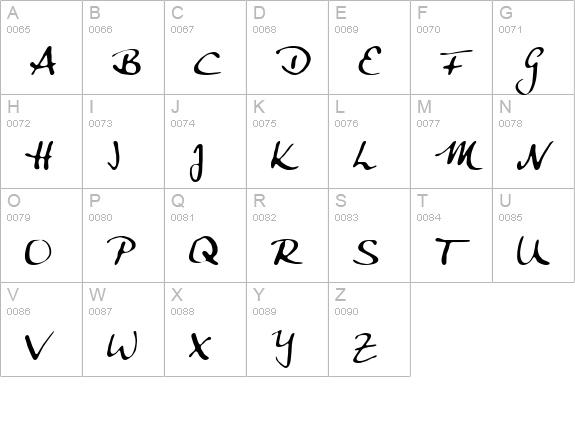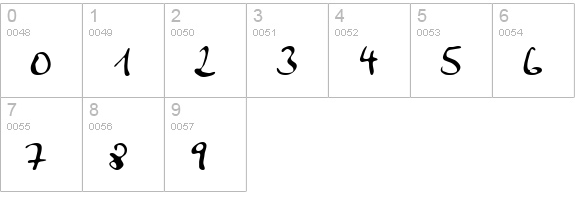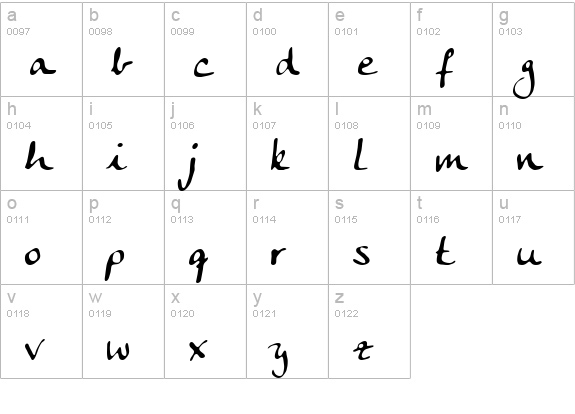
Anke Calligraphic FG Font Details
Anke Calligraphic FG font is a stunning and elegant typeface that exudes sophistication and artistry. With its delicate strokes and graceful curves, this font is perfect for adding a touch of class to any design project. Whether you're creating wedding invitations, branding materials, or artistic displays, Anke Calligraphic FG font will elevate your work to new heights. The best part? Anke Calligraphic FG font is completely free to download at FontsMarket.com. Simply visit the website to access this beautiful font and enhance your designs with its timeless charm. Let the beauty of Anke Calligraphic FG font inspire your creativity and bring your vision to life.